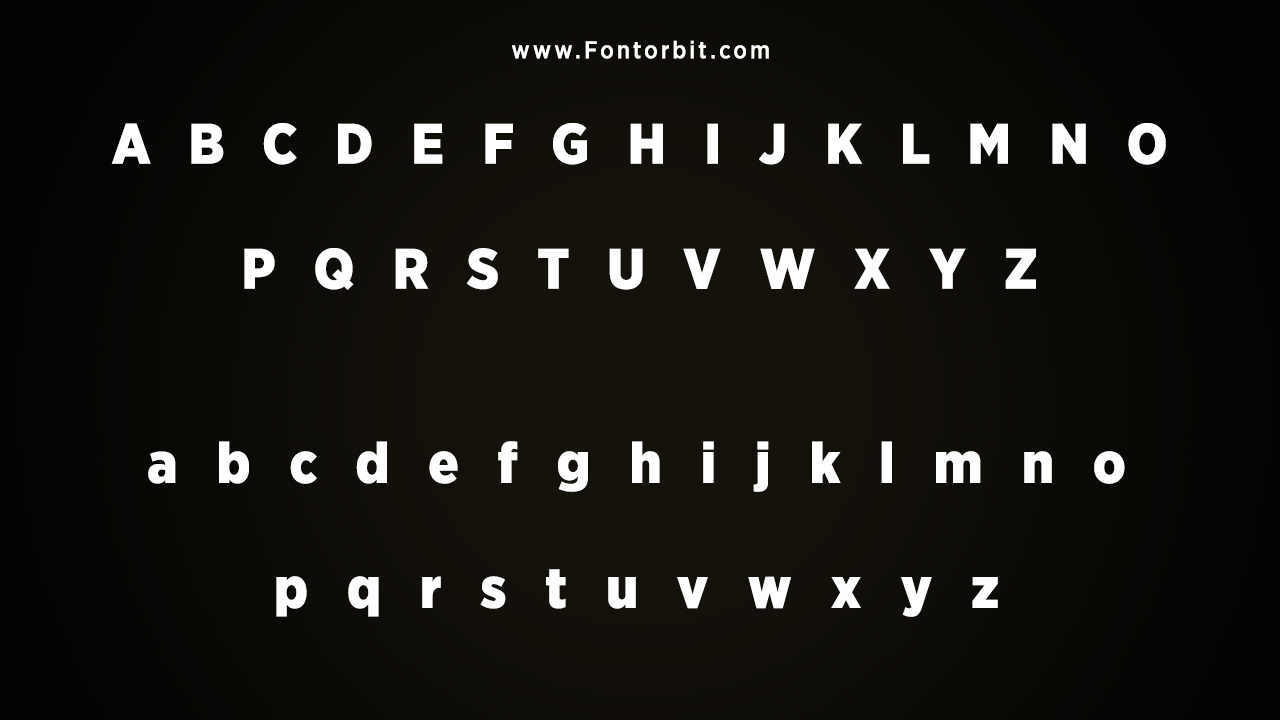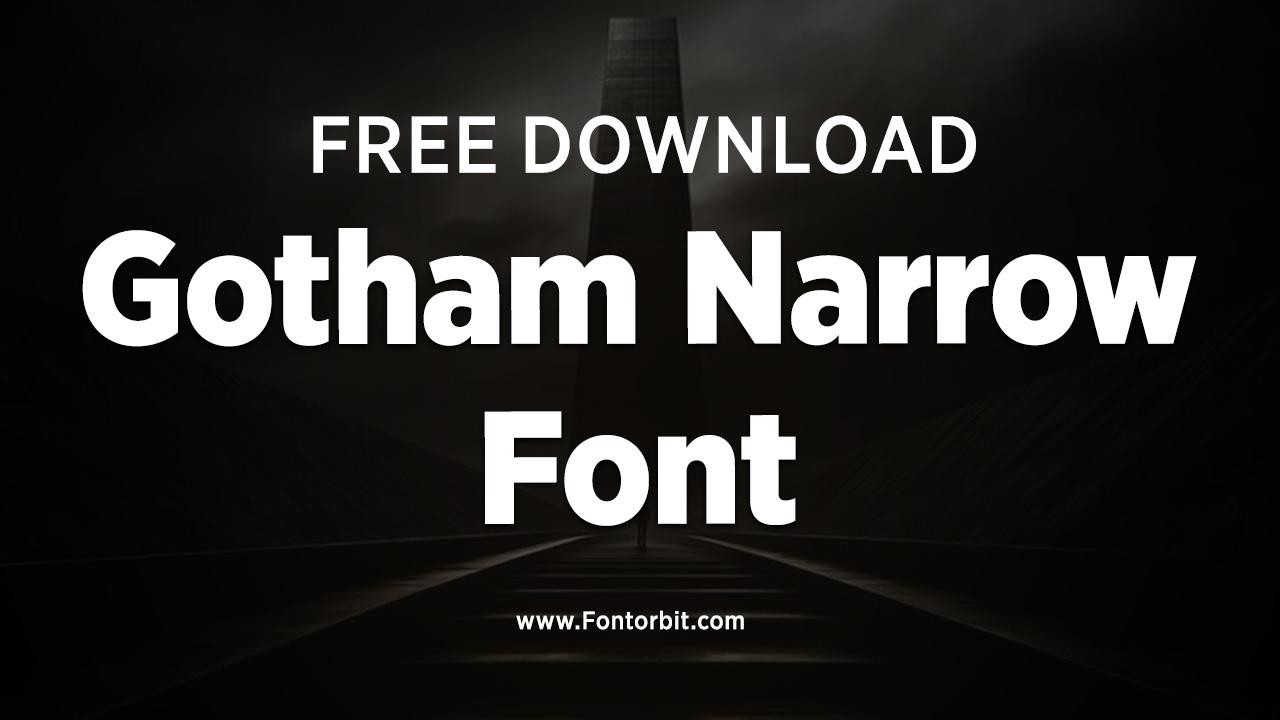
Gotham Narrow Font is a sleek, modern sans-serif typeface designed to provide a clean and professional look for a variety of design projects. Created by Tobias Frere-Jones, Gotham Narrow combines the versatility of Gotham with a more compact, space-efficient design.
Gotham Narrow Font Family Includes
The Gotham Narrow font family encompasses several styles to cater to different design requirements:
- Gotham Narrow Bold
- Gotham Narrow Bold Italic
- Gotham Narrow Thin
- Gotham Narrow Thin Italic
- Gotham Narrow Extra Light
- Gotham Narrow Extra Light Italic
- Gotham Narrow Light
- Gotham Narrow Light Italic
- Gotham Narrow Book
- Gotham Narrow Book Italic
- Gotham Narrow Medium
- Gotham Narrow Medium Italic
- Gotham Narrow Black
- Gotham Narrow Black Italic
- Gotham Narrow Ultra
- Gotham Narrow Ultra Italic
- Gotham XNarrow Bold
- Gotham XNarrow Bold Italic
- Gotham XNarrow Thin
- Gotham XNarrow Thin Italic
- Gotham XNarrow Extra Light
- Gotham XNarrow Extra Light Italic
- Gotham XNarrow Light
- Gotham XNarrow Light Italic
- Gotham XNarrow Book
- Gotham XNarrow Book Italic
- Gotham XNarrow Medium
- Gotham XNarrow Medium Italic
- Gotham XNarrow Black
- Gotham XNarrow Black Italic
- Gotham XNarrow Ultra
- Gotham XNarrow Ultra Italic
Each style maintains Gotham Narrow’s characteristic modern, clean aesthetic while offering variations in weight and emphasis.
Gotham Narrow Font’s clean and contemporary style makes it a popular choice for a wide range of design applications. Its compact design ensures legibility even in smaller or tighter spaces, enhancing its versatility. Here are some common uses:
Gotham Narrow Font is celebrated for its modern, sleek design that maintains readability and efficiency across various applications. Its versatility makes it a go-to choice for both professional and creative projects.
Whether used for web design, corporate branding, or print materials, Gotham Narrow adds a contemporary touch while ensuring clear communication.
1.Is Gotham Narrow Font Suitable For All Types Of Design Projects?
Gotham Narrow Font is highly versatile and works well for most design projects, including web design, corporate branding, and editorial work. However, its narrow design may not be ideal for projects requiring wide letter spacing or large display text.
2.What Makes Gotham Narrow Font Different From Other Sans-Serif Fonts?
Gotham Narrow stands out with its compact letterforms, which provide a sleek, modern look while maintaining excellent readability in constrained spaces. Its narrow profile differentiates it from other sans-serif fonts that may have wider spacing.
3.What Are The Popular Uses Of Gotham Narrow Font?
Gotham Narrow is popular for web design, corporate branding, and editorial design. It is also used in advertising and print materials where a clean, professional appearance is desired.
4.What Are The Design Principles Behind Gotham Narrow Font?
The design principles behind Gotham Narrow focus on providing a modern, clean aesthetic with space efficiency. The narrow letterforms are designed to fit into tighter spaces while ensuring legibility and a contemporary look.
5.What Color Palette Is Typically Used With Gotham Narrow Font?
Gotham Narrow Font pairs well with a wide range of color palettes. It is often used with neutral and professional colors like black, gray, and navy, but can also work effectively with bolder colors in modern design contexts.